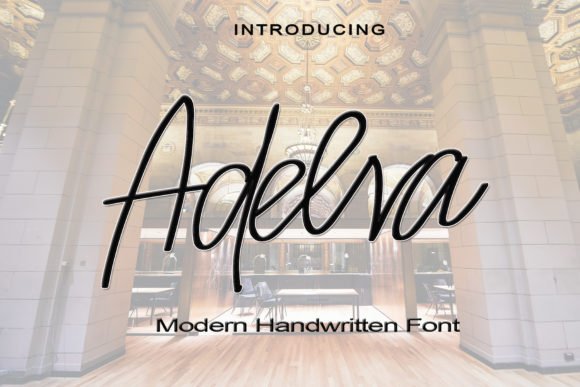
Unleash your creativity with Adelva, the enchanting script font that will effortlessly elevate your designs to breathtaking heights. Each letter dances across the page with an unmatched grace and fluidity, captivating the senses with its timeless elegance.
Step into a realm of sophistication where Adelva's intricate swirls and delicate flourishes weave a spell of enchantment upon your creations. Whether you seek to craft an unforgettable logo, design captivating branding, or pen heartfelt invitations, Adelva's versatile nature knows no bounds.
Imagine your website transformed into a sanctuary of visual delight, where Adelva's graceful lines guide visitors through an unforgettable experience. Its modern aesthetic blends seamlessly with your brand's identity, creating a lasting impression that resonates with your audience.
Invite Adelva into your social media realm and watch your posts blossom with an ethereal charm. Embrace the power of storytelling as you weave captivating tales that draw followers into your enchanting world.
For those special moments that call for an extra touch of elegance, Adelva's exquisite presence will add a touch of timeless beauty to your wedding designs. From intricate invitations to breathtaking table settings, Adelva will transform your celebration into a cherished memory that will be treasured for a lifetime.
But Adelva's magic extends far beyond the digital realm. Its versatility shines in the world of stationery, where it graces notecards, letterheads, and envelopes with an air of refinement and charm. Allow your written words to dance across the page, imbued with the captivating allure of Adelva's script.
With Adelva as your creative companion, the possibilities are endless. Dive into a world of limitless expression, where every stroke of your pen or tap of your keyboard is infused with the power to captivate and inspire.